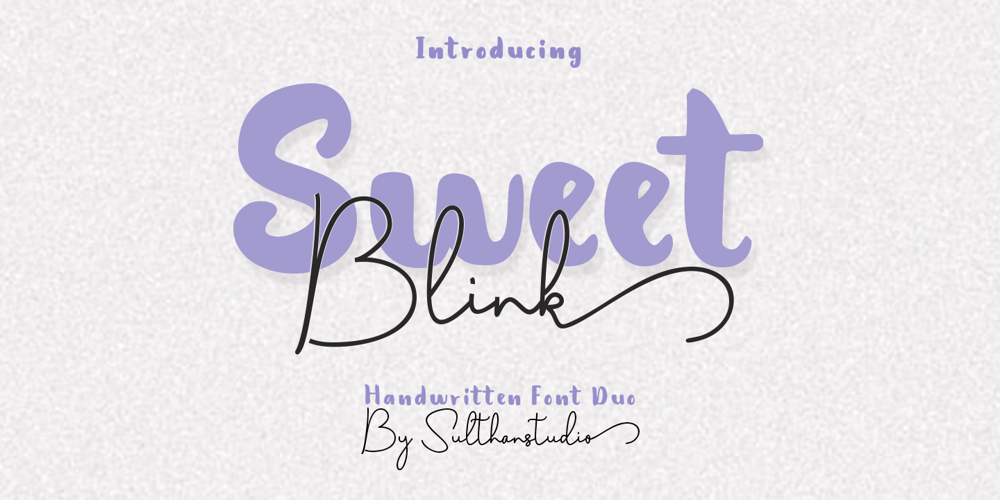
Sweet blink play
Sweet blink play font
Sweet blink play Font Family was designed by Nasrullah and published by Sulthan Studio. Sweet blink play contains 2 styles and family package options. Sweet Blink is a cute and friendly handwritten font duo that is perfect for creating charming and playful designs. Its delicate and whimsical letters feature playful curves and loops, giving it a warm and inviting personality. This font is perfect for invitations, greeting cards, and other projects that require a personal and charming touch. The font’s cute and friendly personality is sure to make viewers smile.